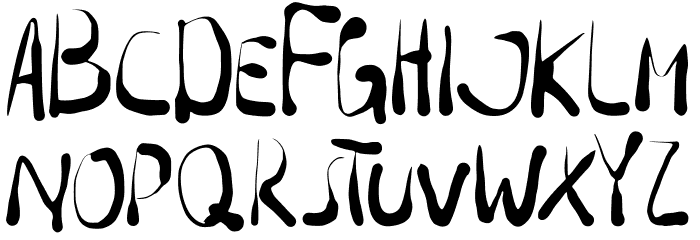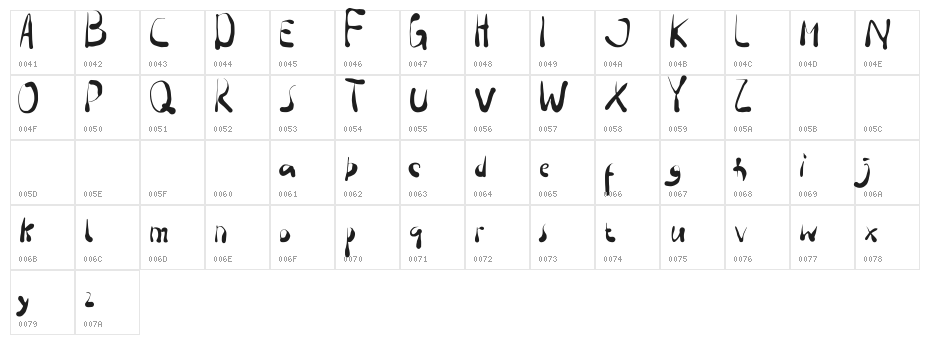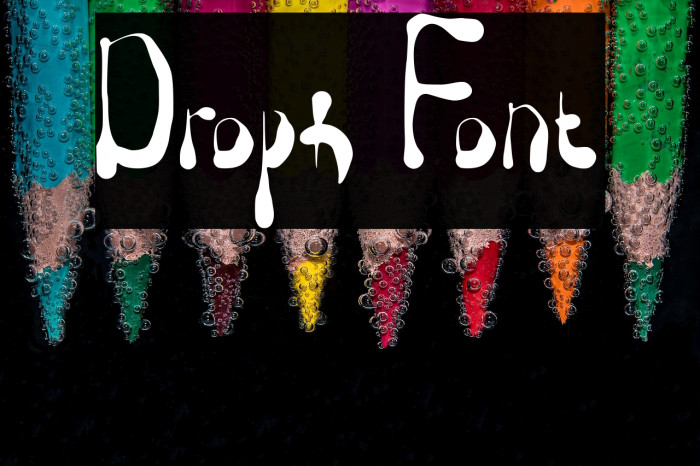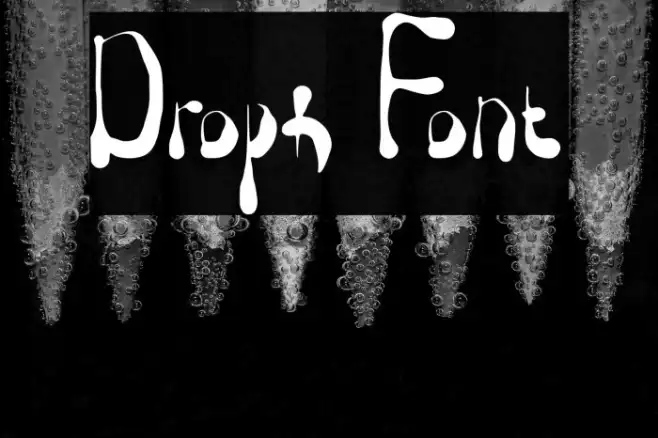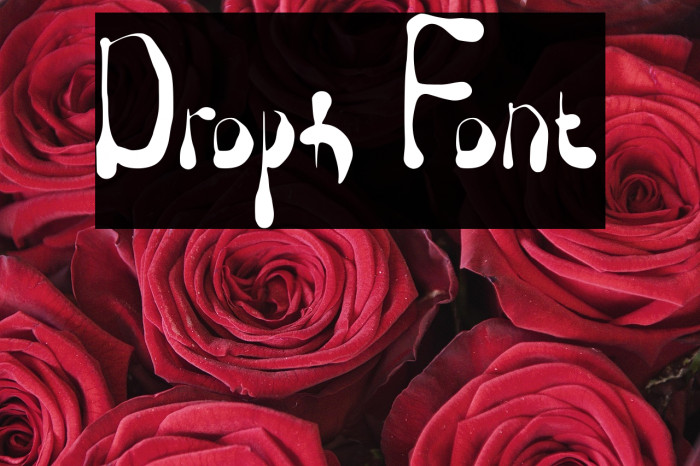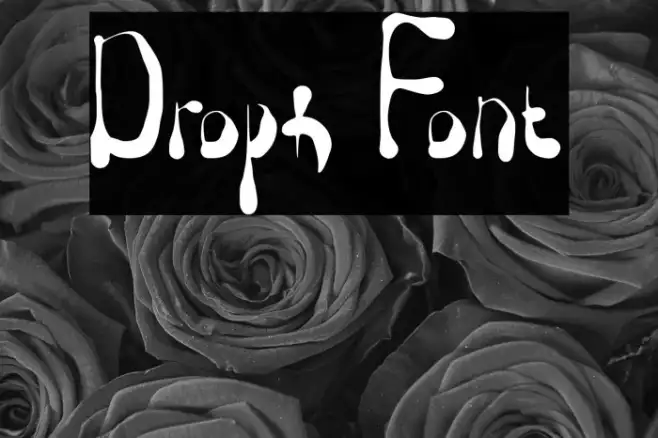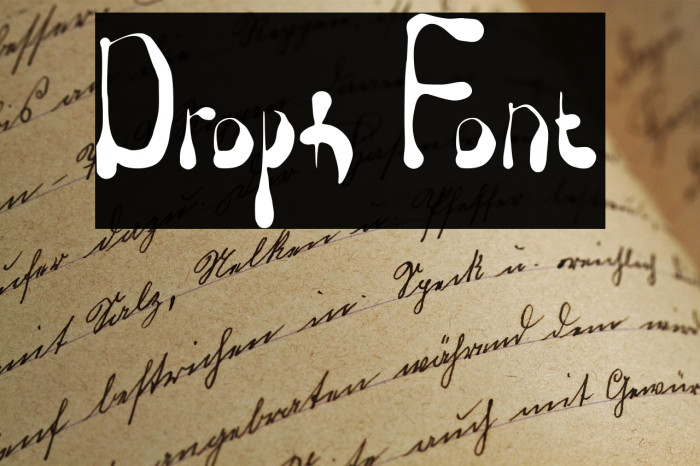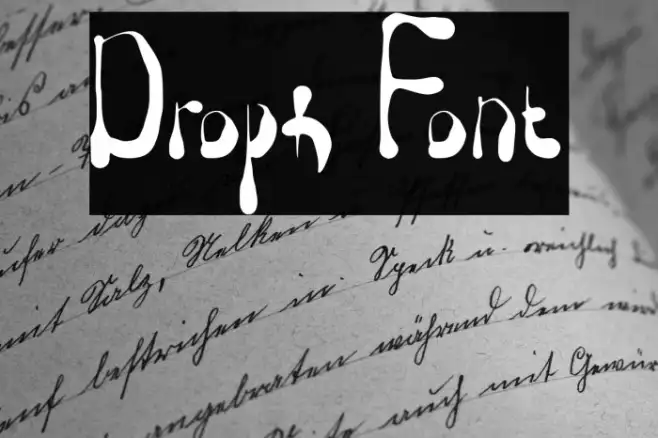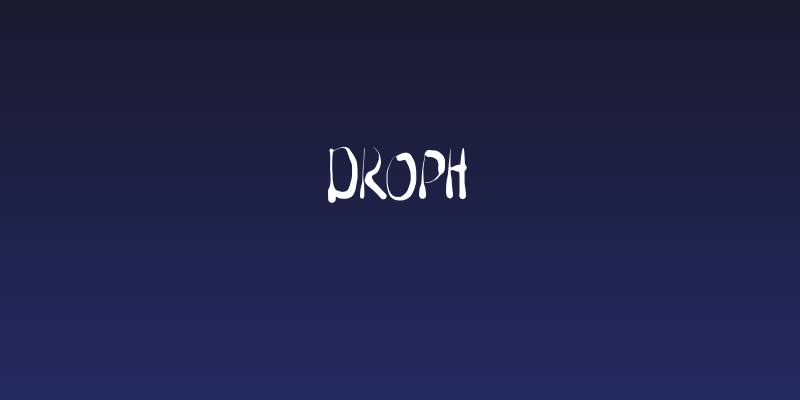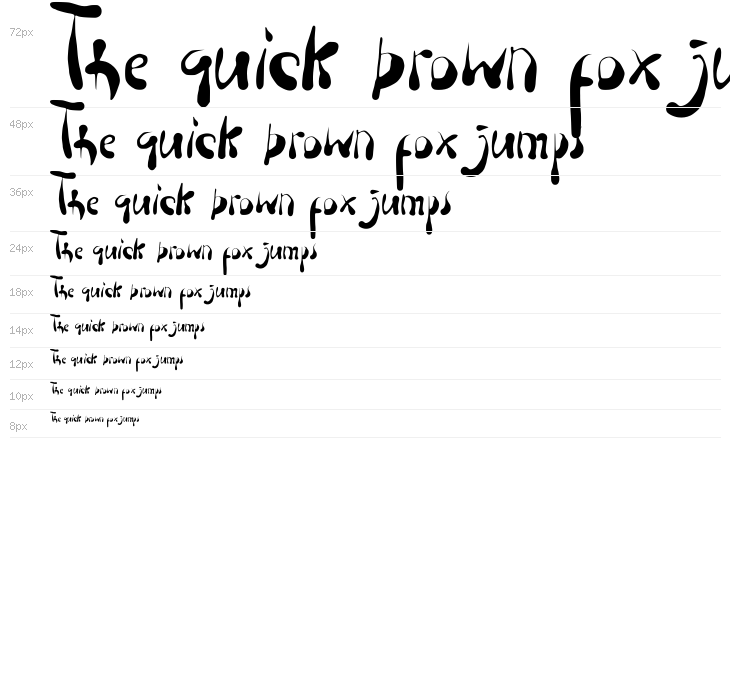
Droph Font
Droph Description
This font features a unique and artistic style with a hand-drawn appearance. The characters exhibit a fluid and organic form, with varying stroke thickness that adds a dynamic and lively feel. The uppercase letters are bold and prominent, while the lowercase letters maintain a consistent flow, enhancing the overall whimsical nature. The numbers and special characters follow the same playful design, making the font suitable for creative and expressive projects. Its distinctive style captures attention and conveys a sense of individuality and creativity.
| Overall Style | Artistic, Whimsical |
| Proposed Projects | Ideal for artistic projects, branding, posters, and invitations where a creative and unique touch is desired. |